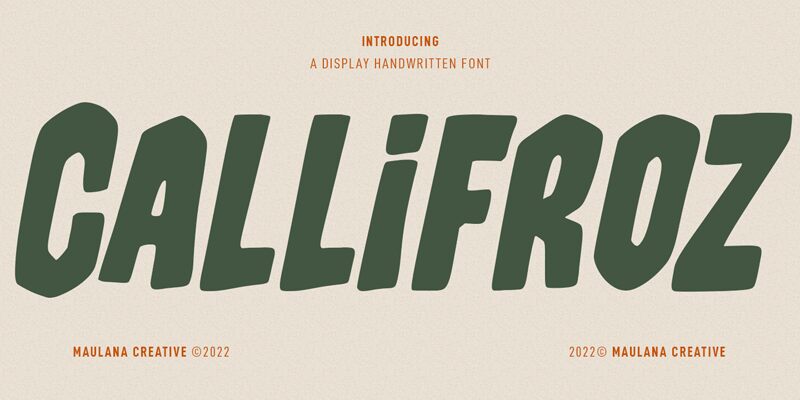
Callifroz Free Regular
Callifroz, designed by Maulana Creative, is a bold and striking display font that commands attention. With its extra-condensed width, it exudes a sense of sleekness and modernity.
Suitable for a wide range of projects, this font is perfect for eye-catching headlines on websites and advertisements. Its bold weight gives it a powerful presence, making it ideal for logo designs that demand impact and memorability. Whether used in branding projects or editorial designs, Callifroz adds a touch of sophistication and professionalism to any creative endeavor.